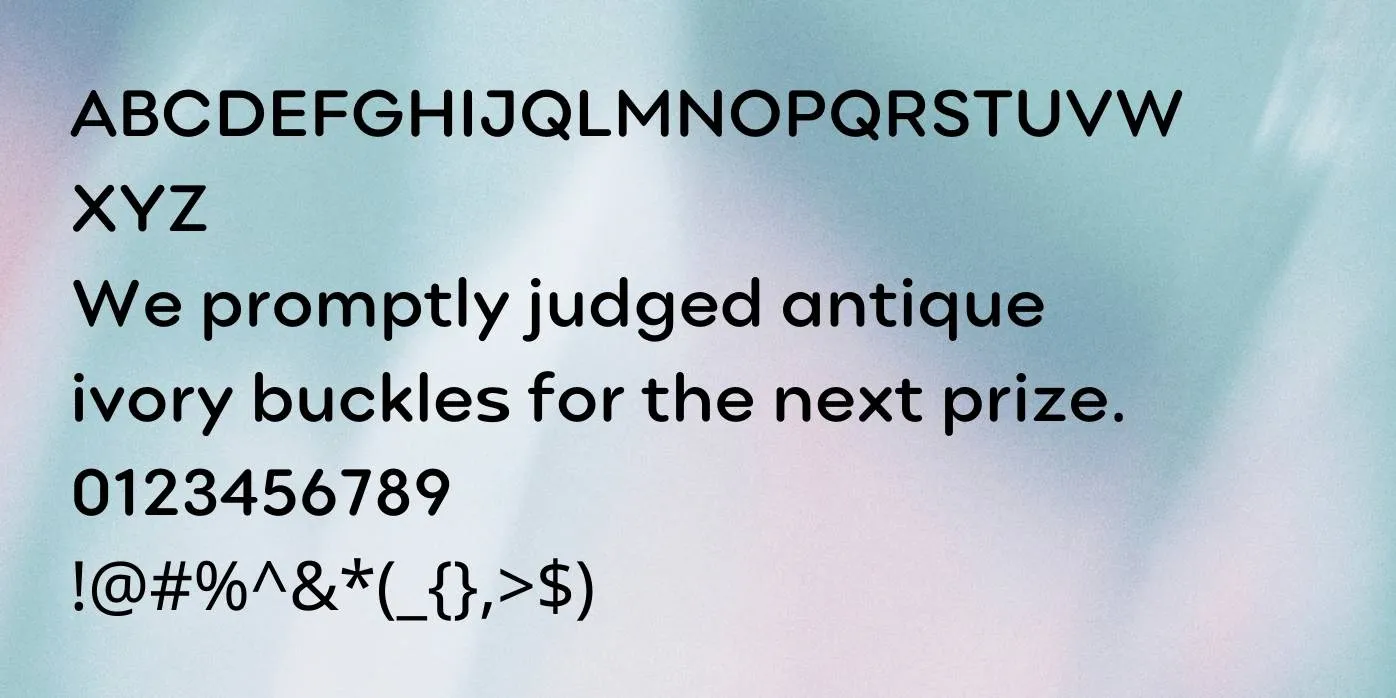
Point soft font is a stylish typeface font that was designed by a famous designer named “Natanael Gama” and this font is released by a famous foundry named ” N Discover”. This is a rounded shape of fancy font that looks wonderful and has a good potential to highlight your work.
This typeface font family comes in 24 styles of different glyphs, characters, and alternates. Each and every glyph of a different style create a new look in design.
View of Point Soft Font
Point Soft Font Info
| Name | Point Soft Font |
| Designer | Natanael Gama |
| Style | Display |